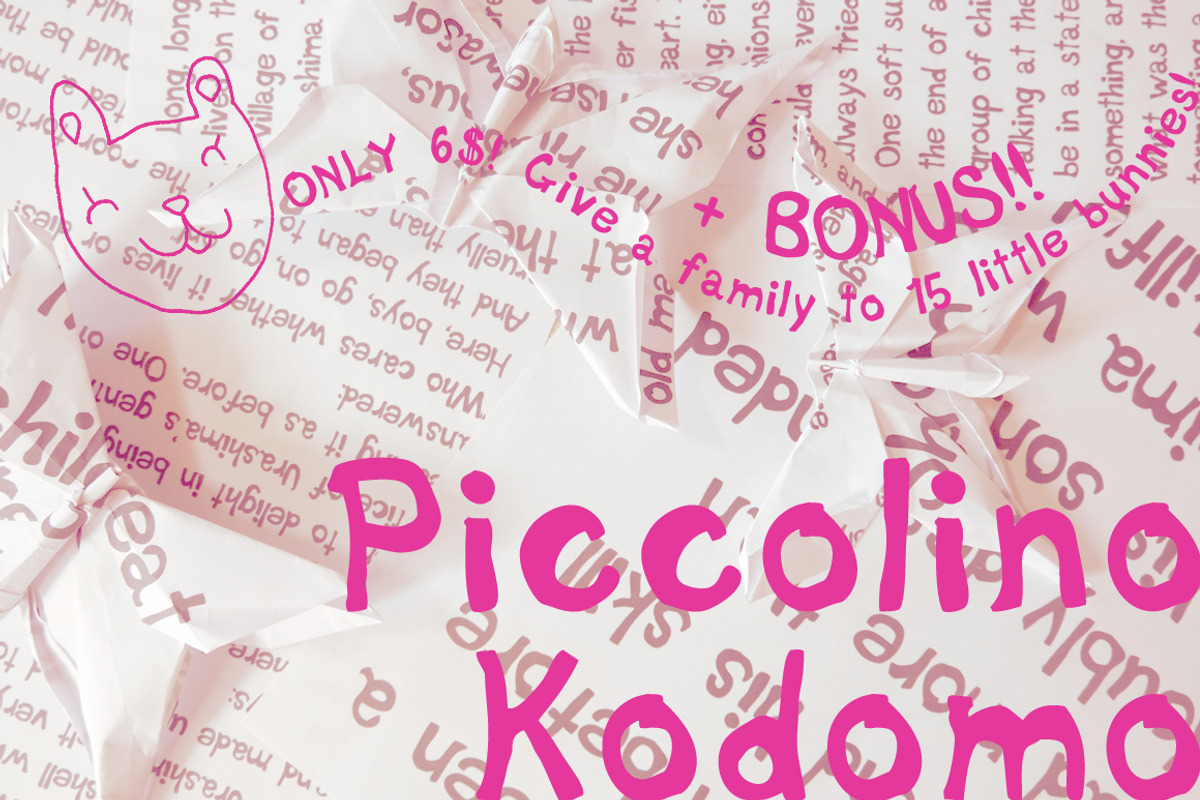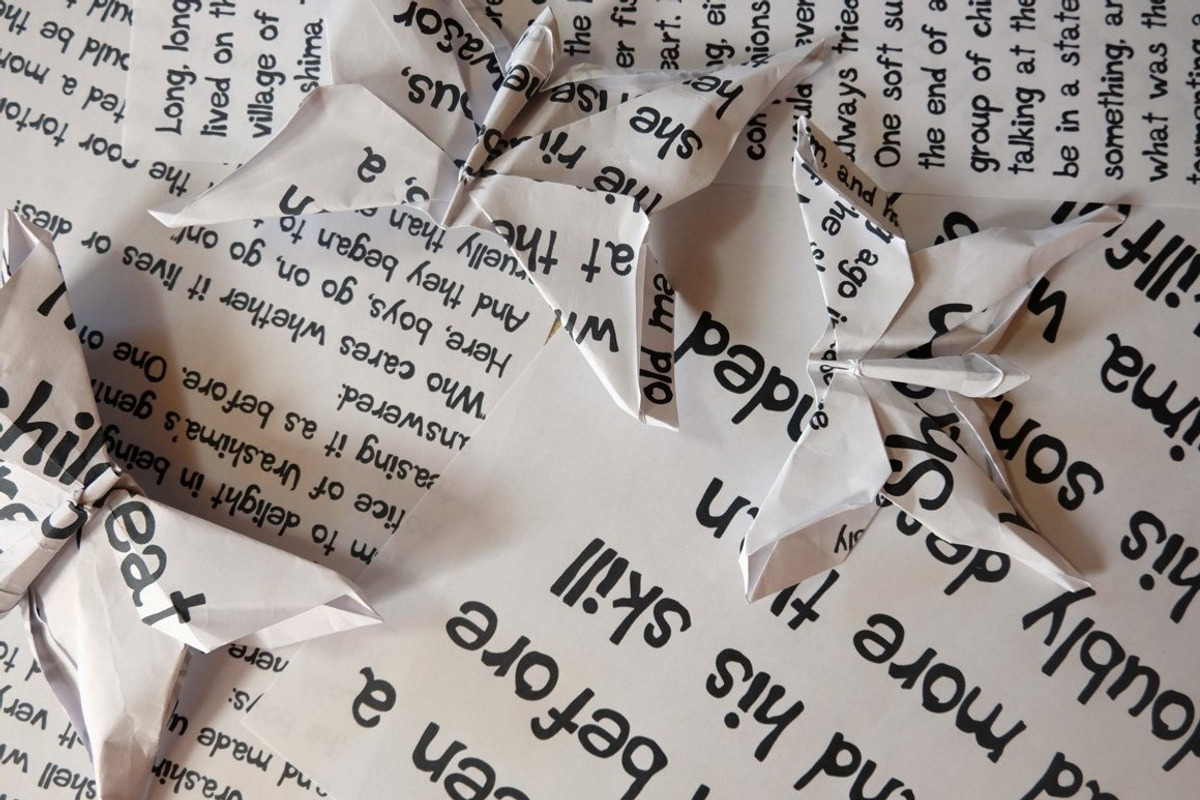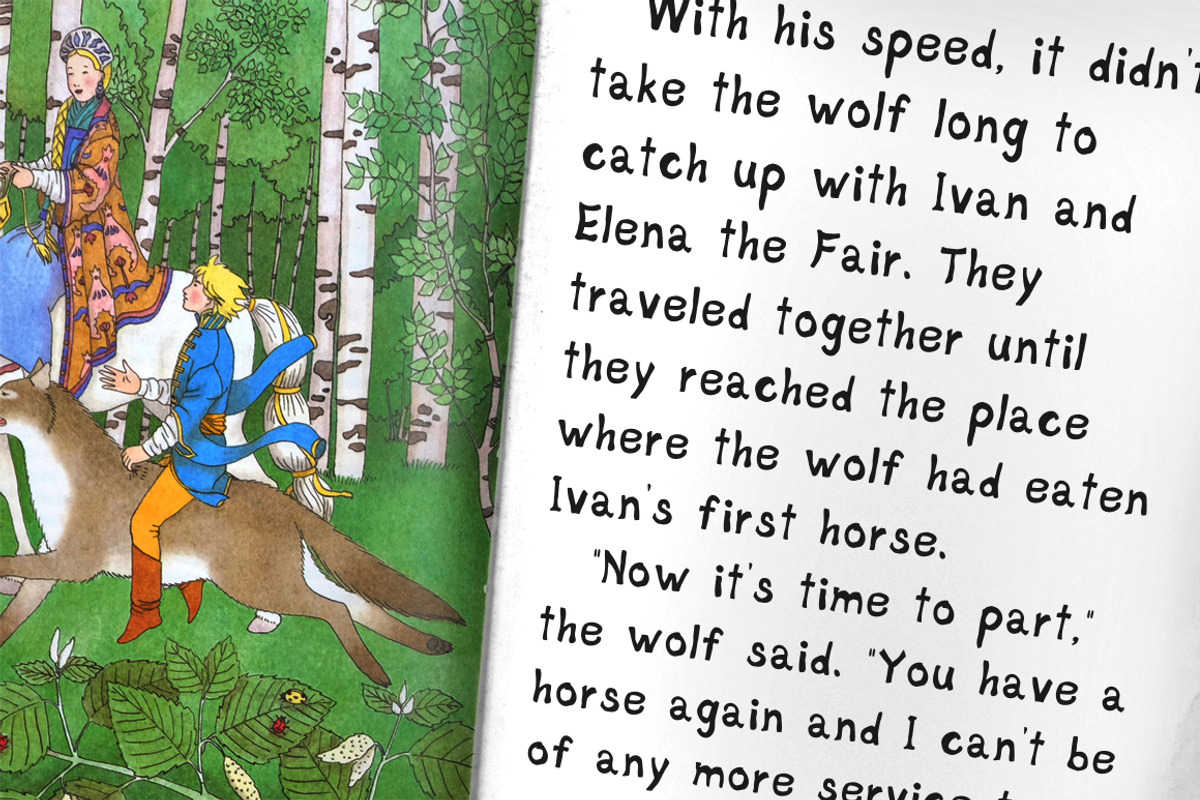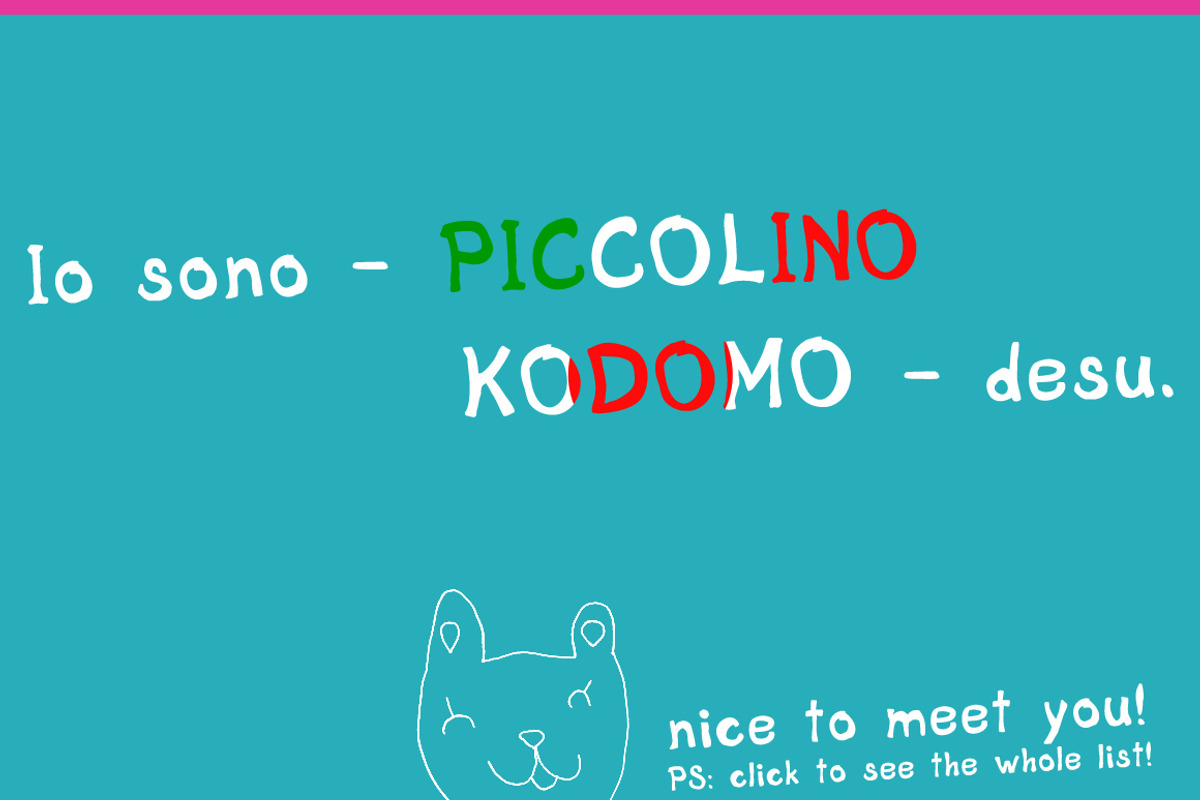
Piccolino Kodomo, font & bunnybonus!
Piccolino Kodomo, font & bunnybonus! by Shirakawa Maya is a font selected for branding, posters, packaging, typography.
Why Piccolino Kodomo, font & bunnybonus! is worth a look
Piccolino Kodomo, font & bunnybonus! by Shirakawa Maya fits naturally into Branding, posters, packaging, typography.